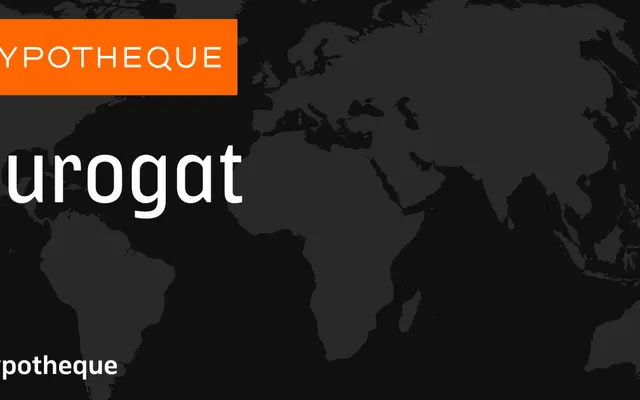
Surogat specimen from Typotheque
A broad grotesque sans system from Typotheque spanning three widths and eight weights, each with matching italics.
The family runs across standard, Condensed and Compressed widths, each carrying eight weights from Thin to Black with accompanying italics, giving a total of 48 styles. Individual styles are sold under city names, a naming convention Typotheque uses across the range. The breadth of the system suits editorial and identity work requiring consistent typographic control across different measures and hierarchies.
Surogat presents as a multi-width grotesque sans-serif system, with no visible humanist or geometric tendencies evident from the specimen, structured across three width variants typical of a contemporary editorial grotesque.